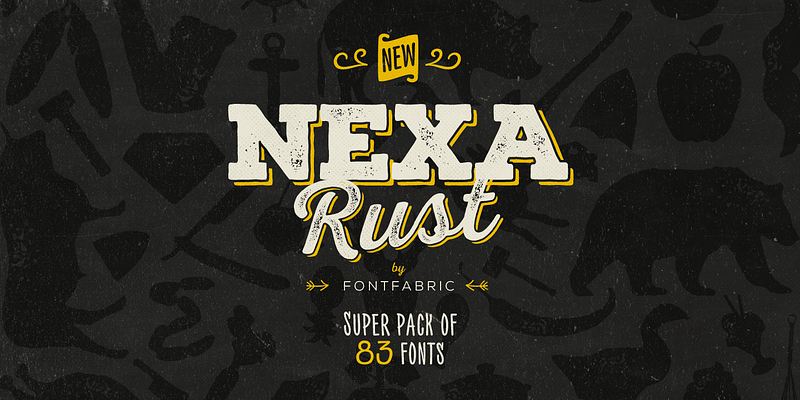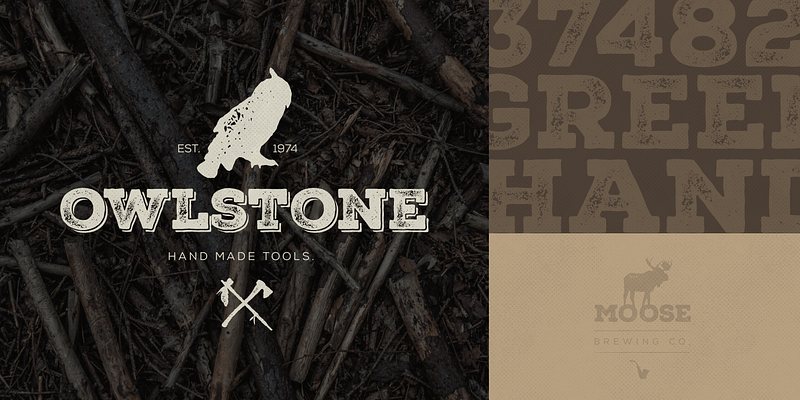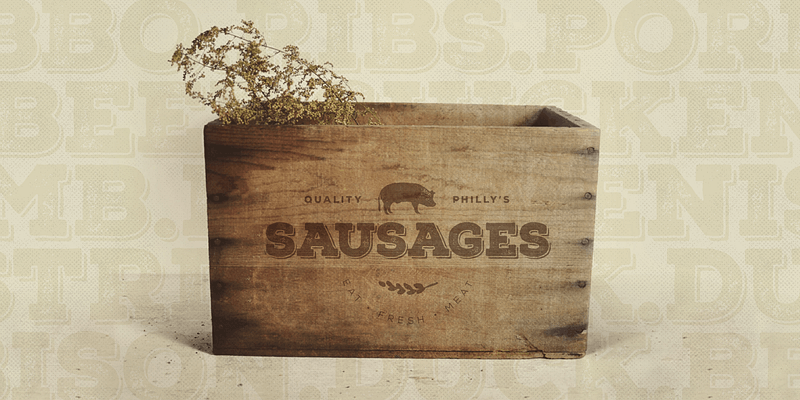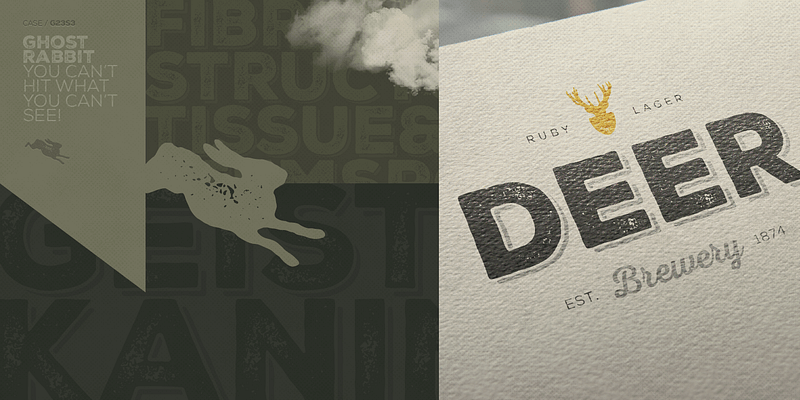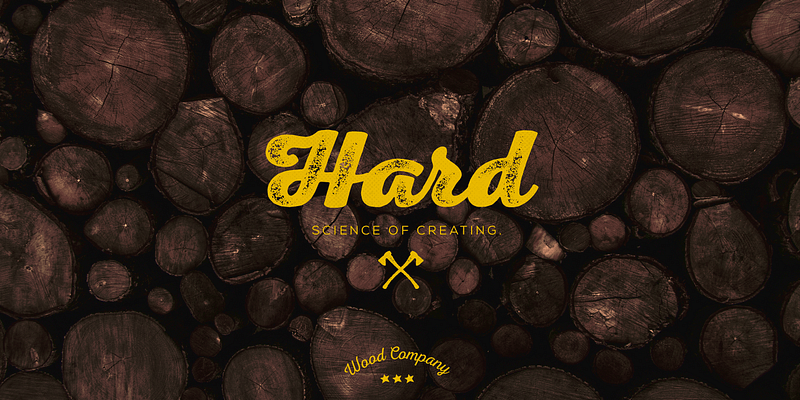
Nexa Rust is a one-of-a-kind font family from Fontfabric Type Foundry that adds a unique, handmade feel to any design project. With its textured, rough edges and warm, inviting appearance, Nexa Rust stands out as a versatile and eye-catching option for designers looking to add a touch of personality to their work.
The full type system consists of five sub-families, including Sans, Slab, Script, Handmade, and Extras, each with several font weights that offer a range of styles and degrees of saturation. The handmade textures of Nexa Rust make it perfect for use in branding, packaging, advertising, and more, where designers are looking for a font that is both expressive and impactful.
Nexa Rust is a rougher version of the already popular Nexa and Nexa Slab font families, with added new matching Nexa Script and Nexa Handmade fonts. The added groups of extras also provide a foundation for designers to build on and add that extra “cherry on top” to their unique design.
Overall, Nexa Rust is a font family that offers designers the flexibility to create bold and expressive designs with a human touch. Its unique handmade textures and various styles make it a great choice for designers looking to add a touch of character and warmth to their projects.
Fontfabric Type Foundry is a world-renowned digital type foundry with a strong reputation for crafting premium retail typefaces. It was founded in 2008 by Svet Simov in Sofia, Bulgaria, and has been thriving for 15 years. The compact team consists of talented, multidisciplinary designers who have a passion for highquality typefaces, calligraphy, and lettering. Fontfabric draws inspiration from the country’s millennial Cyrillic heritage and digital typographic practices, which have helped them create some of the most recognized typefaces in the industry. Among their most popular typefaces, enjoyed by a broad audience, are Nexa, Intro, and Mont.
The foundry’s authenticity and problem-solving mindset have earned them a spot among a global network of type professionals, independent creatives, and internationally renowned brands such as Nike, Lipton, CBS, BBC, Kraft Foods, and Viasat, to name a few. Apart from commercial success, Fontfabric leads workshops, and collaborates with locals and internationals alike to cultivate a growing and vibrant type scene. With its decade and a half of existence, Fontfabric has climbed to the top of the bestselling font charts, transforming into one of the most distinguished type foundries globally.